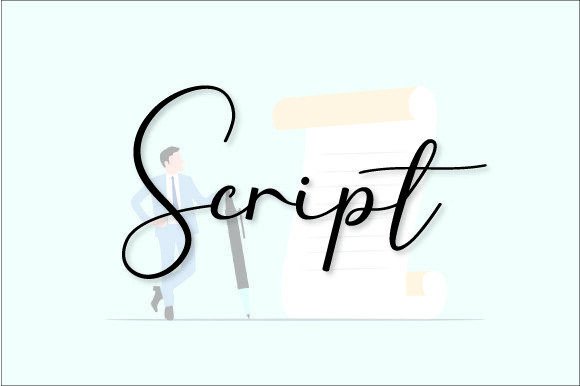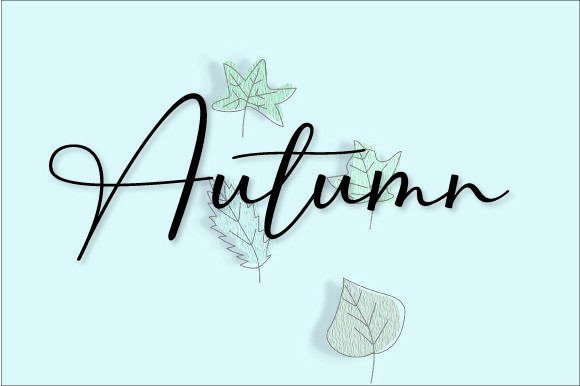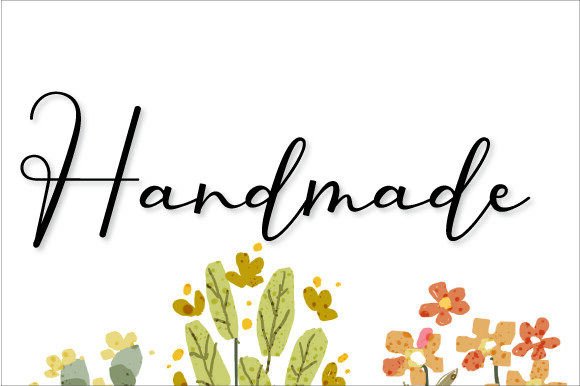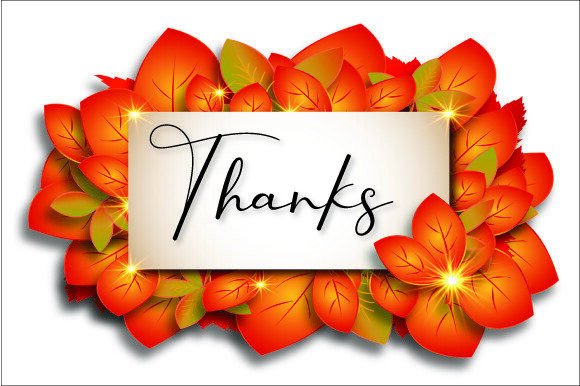
Introducing Adonan Font: The Sweet and Cursive Handwritten Font for Your Design Needs
Are you a designer or crafter looking for a font that can add a touch of sweetness and romance to your projects? Look no further than Adonan Font! This beautiful, cursive handwritten font is perfect for a variety of design ideas and is sure to bring a joyful and romantic feel to your work.
What is Adonan Font?
Adonan Font is a unique and elegant font that is designed to bring a touch of whimsy and charm to your designs. Its sweet and cursive handwritten style makes it perfect for a wide range of projects, from wedding invitations and greeting cards to branding and packaging.
Key Features of Adonan Font
- Sweet and Cursive Handwritten Style: Adonan Font features a beautiful, cursive handwritten style that is both elegant and playful.
- Perfect for a Variety of Design Ideas: Whether you’re working on a wedding invitation, a greeting card, or a branding project, Adonan Font is sure to add a touch of joy and romance.
- Easy to Read and Use: Despite its elegant and cursive style, Adonan Font is easy to read and use, making it perfect for both digital and print projects.
- High-Quality Design: Adonan Font is designed with high-quality and attention to detail, ensuring that it looks great in any size or format.
How to Use Adonan Font in Your Designs
Adonan Font is a versatile font that can be used in a wide range of design projects. Here are a few ideas to get you started:
- Wedding Invitations: Add a touch of romance and elegance to your wedding invitations with Adonan Font.
- Greeting Cards: Use Adonan Font to create beautiful and heartfelt greeting cards for special occasions.
- Branding and Packaging: Add a touch of whimsy and charm to your branding and packaging with Adonan Font.
- Digital Projects: Use Adonan Font in your digital projects, such as social media graphics, blog posts, and email newsletters.
Why Choose Adonan Font?
There are many fonts available that offer a similar style to Adonan Font, but here are a few reasons why Adonan Font stands out:
- Unique and Elegant Design: Adonan Font features a unique and elegant design that is sure to make your projects stand out.
- High-Quality and Versatile: Adonan Font is a high-quality font that can be used in a wide range of design projects.
- Easy to Read and Use: Adonan Font is easy to read and use, making it perfect for both digital and print projects.
If you’re looking for a font that can add a touch of sweetness and romance to your designs, look no further than Adonan Font. This beautiful, cursive handwritten font is perfect for a wide range of design ideas and is sure to bring a joyful and romantic feel to your work. With its unique and elegant design, high-quality and versatility, and ease of use, Adonan Font is the perfect choice for designers and crafters.